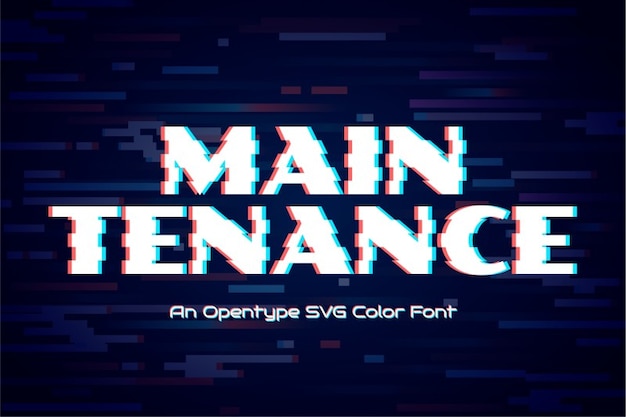
Maintenance
Maintenance Font
Maintenance font disrupts clarity with its blurred, glitched appearance, evoking a sense of disarray. Each letter is a testament to the unseen errors lurking beneath the surface. Perfect for projects seeking to challenge perception, Maintenance infuses typography with an unsettling aura, inviting viewers to explore the blurred boundaries of order and chaos.